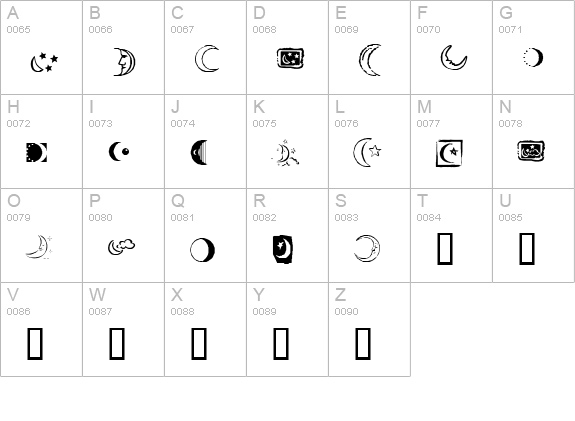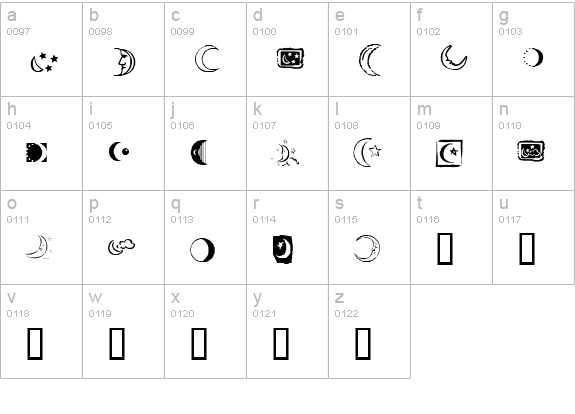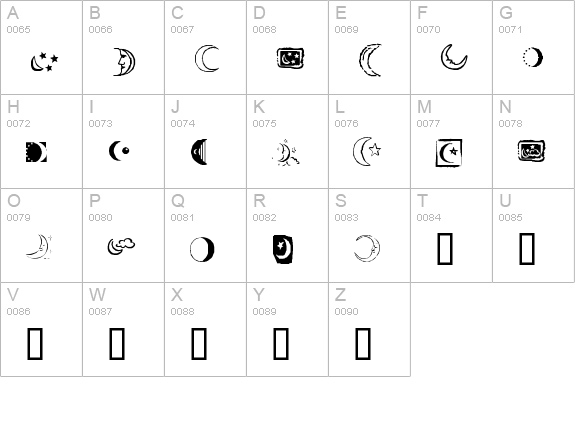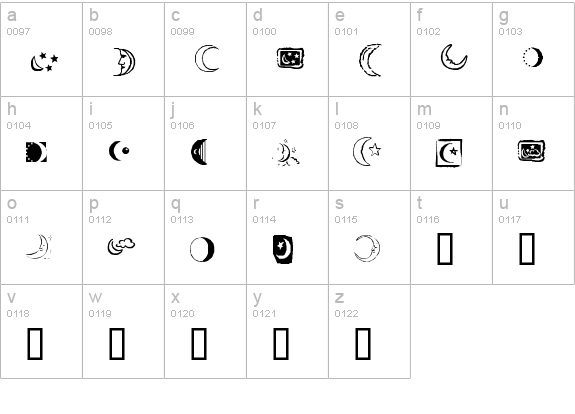
KR Crescent Moons Font Details
The KR Crescent Moons font is a whimsical and enchanting typeface that will add a touch of magic to any design project. Its unique crescent moon-inspired letterforms exude a sense of mystery and wonder, making it perfect for creating eye-catching headlines, invitations, and more. This playful font is sure to captivate and delight your audience with its charming appeal. Best of all, the KR Crescent Moons font is completely free to download at FontsMarket.com. With just a few clicks, you can add this delightful typeface to your collection and start incorporating its spellbinding charm into your designs. Don't miss out on the opportunity to elevate your projects with this enchanting font - download the KR Crescent Moons font today and let your creativity soar to new heights!